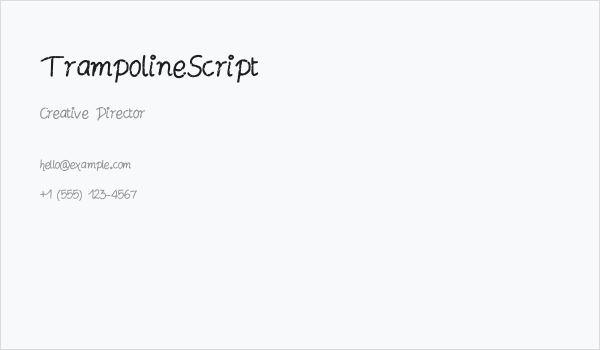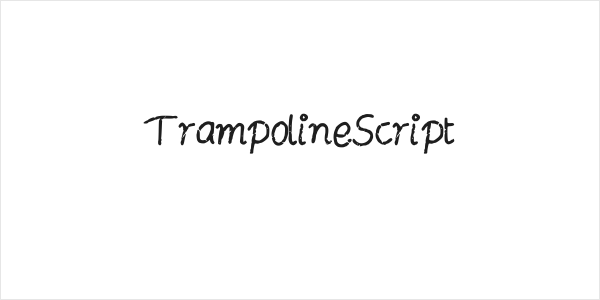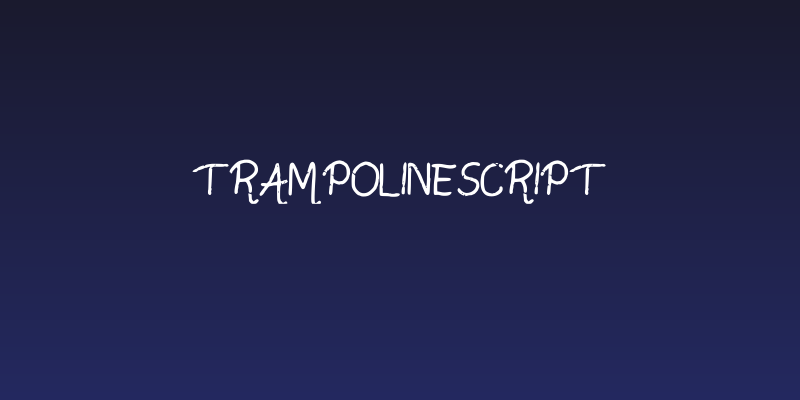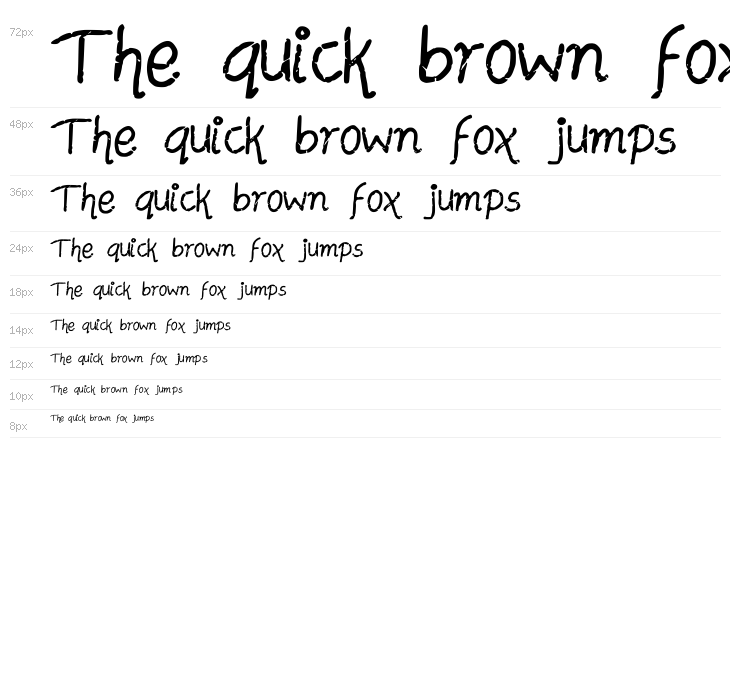
TrampolineScript Font
TrampolineScript Description
This font features a playful and dynamic script style, characterized by its bouncy and irregular letterforms. The strokes are uneven, giving it a hand-drawn, organic feel that adds a sense of whimsy and creativity. The uppercase and lowercase letters maintain a consistent style, with some letters having exaggerated curves and loops. The numbers and special characters follow the same playful aesthetic, making the font suitable for informal and creative projects. The overall appearance is lively and energetic, perfect for capturing attention.
| Use Case | Logos, Headlines, Posters |
| Proposed Projects | Ideal for children's book covers, playful branding, greeting cards, and creative posters. |